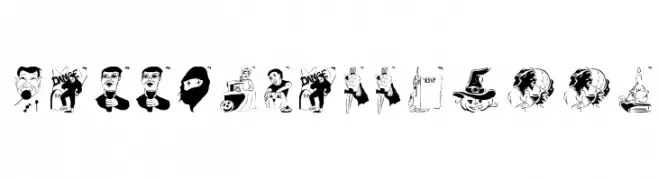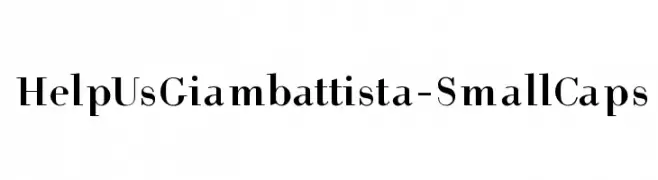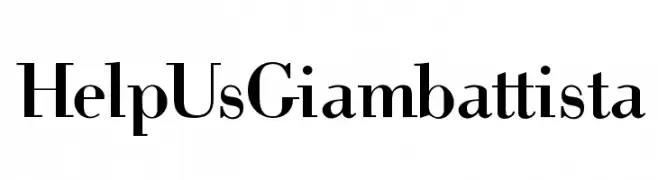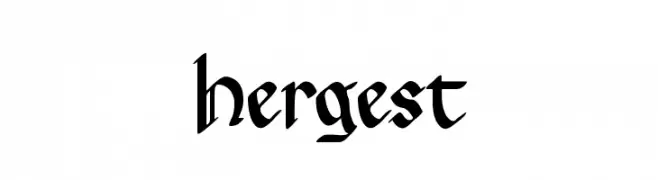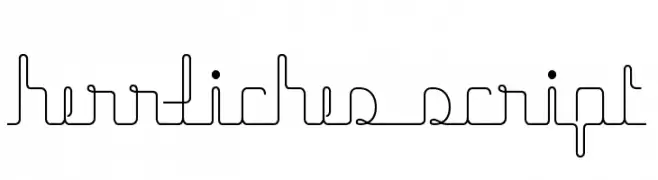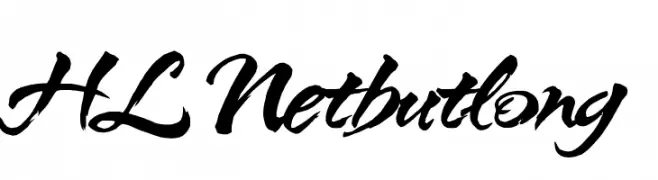
• HelloVienna2005
A decorative Halloween-themed font with playful, illustrated characters.
• HelmbuschCrestSymbols
A collection of ornate, heraldic-inspired symbols with intricate details.
• HelpUsGiambattista
A classic serif font with high contrast and elegant, sophisticated styling.
• HelpUsGiambattista-SmallCaps
A classic serif font with medium contrast and elegant styling.
• Hergest
A bold Blackletter font with dramatic, angular strokes and a medieval aesthetic.
• herrliches script
• Hiccups
A playful, hand-drawn font with thick, rounded strokes and a whimsical style.
• Hitch
A bold, rounded font with a playful and approachable style.
• HL Netbutlong
A bold, fluid script font with a modern, handwritten style.
• HL Netco 1BK
A dynamic handwritten font with fluid, slightly slanted letterforms and medium contrast.